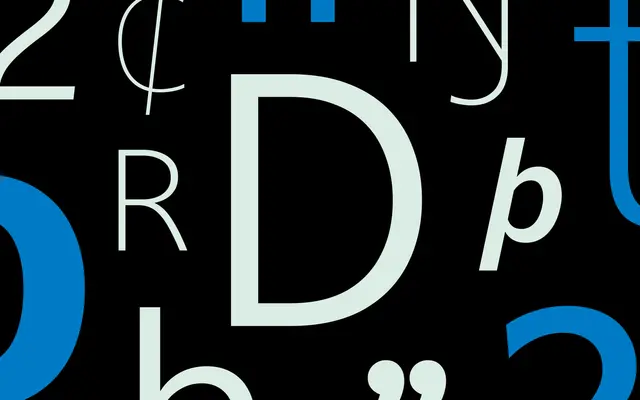
Darkmode
Dalton Maag · Matt Burvill, Maria Fontenelle, Diogo Rapazote, Eduardo Rennó, Deiverson Ribeiro · 2024
A humanist sans for modern UIs by the Dalton Maag team, with a Darkmode axis that counteracts the Irradiation Illusion so contrast holds on light and dark.
A humanist sans by Matt Burvill, Maria Fontenelle, Diogo Rapazote, Eduardo Rennó and Deiverson Ribeiro, drawn for modern product UIs. Nine weights run from Hairline to Black with matching italics, and a 3-axis variable font adds the Darkmode axis that rebalances stroke weight against the Irradiation Illusion when type sits on dark backgrounds. Multi-script coverage across Cyrillic, Greek, Hebrew and Latin and a matching Mono make it a complete UI system for tech, fintech and product brands.
Dalton Maag describe Darkmode as a highly legible humanist sans for modern UIs, with Weight and Italic axes and a Darkmode axis that counteracts the Irradiation Illusion to keep contrast consistent across light and dark backgrounds.